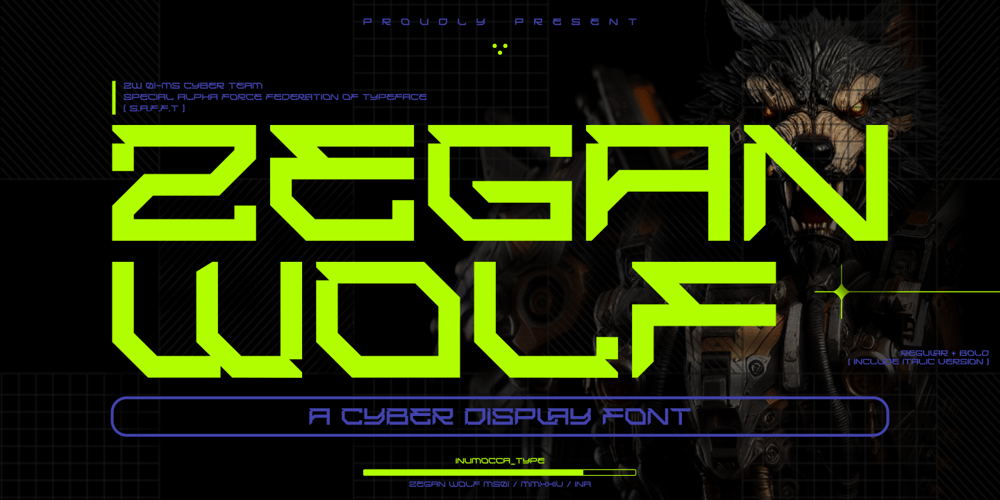
Zegan Wolf Italic
Zegan Wolf Italic font
Zegan Wolf Italic Font Family was designed by Inu Mocca and published by Inumocca. Zegan Wolf Italic contains 4 styles and family package options. Zegan Wolf a Cyber Display FontInspiration by Game Poster, futuristic design, Modern Technology, Synthwave, Sci-fi Movie Poster, science and Space Theme.Really great font to covering your Project, like poster Game, mecha poster, logotype, Website Interface, Magazine, Branding, Logos, and more your project design.- Unique glyphs- Multilingual Characters- UPPERCASE- Lowercase- Numeric- Symbol- Punctuation Character- PUA encoded- Ligature Feature inumoccatype